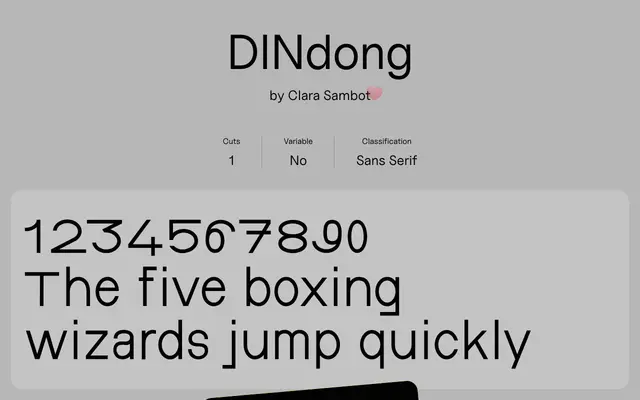
DINdong
A single-cut, free-to-use sans serif by Clara Sambot that plays on the DIN grotesque tradition with a lighter touch.
Released under the Open Inclusive Font License, DINdong is available in one weight and free for both personal and commercial use. The name signals a connection to the DIN grotesque lineage, though the design appears to take a more informal or expressive approach to that reference. With no variable axis and a single cut, it suits projects needing a straightforward, accessible sans with a hint of character.
Classified as Sans Serif on the foundry page; the name suggests a playful riff on the DIN grotesque tradition.